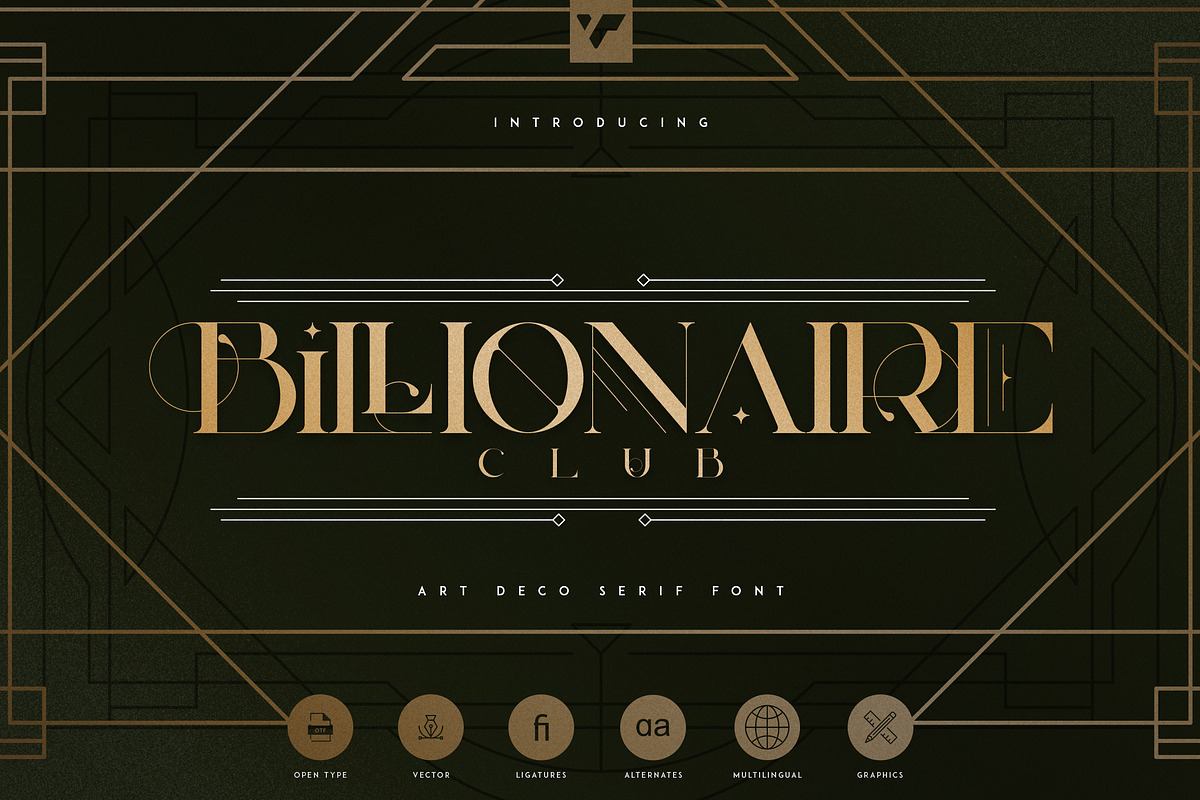
Billionaire Club - Art Deco Serif Font Free Download is a luxurious and sophisticated typeface inspired by the elegant and bold design trends of the Art Deco era. With its sharp serifs, geometric lines, and striking character forms, this font is perfect for high-end branding, vintage logos, luxury product packaging, event invitations, and elegant editorial designs.
The refined structure and classic appeal make Billionaire Club ideal for projects that need to convey prestige, exclusivity, and style. Whether you're designing for upscale brands or crafting an elegant layout, this font adds a touch of timeless glamour to any project.